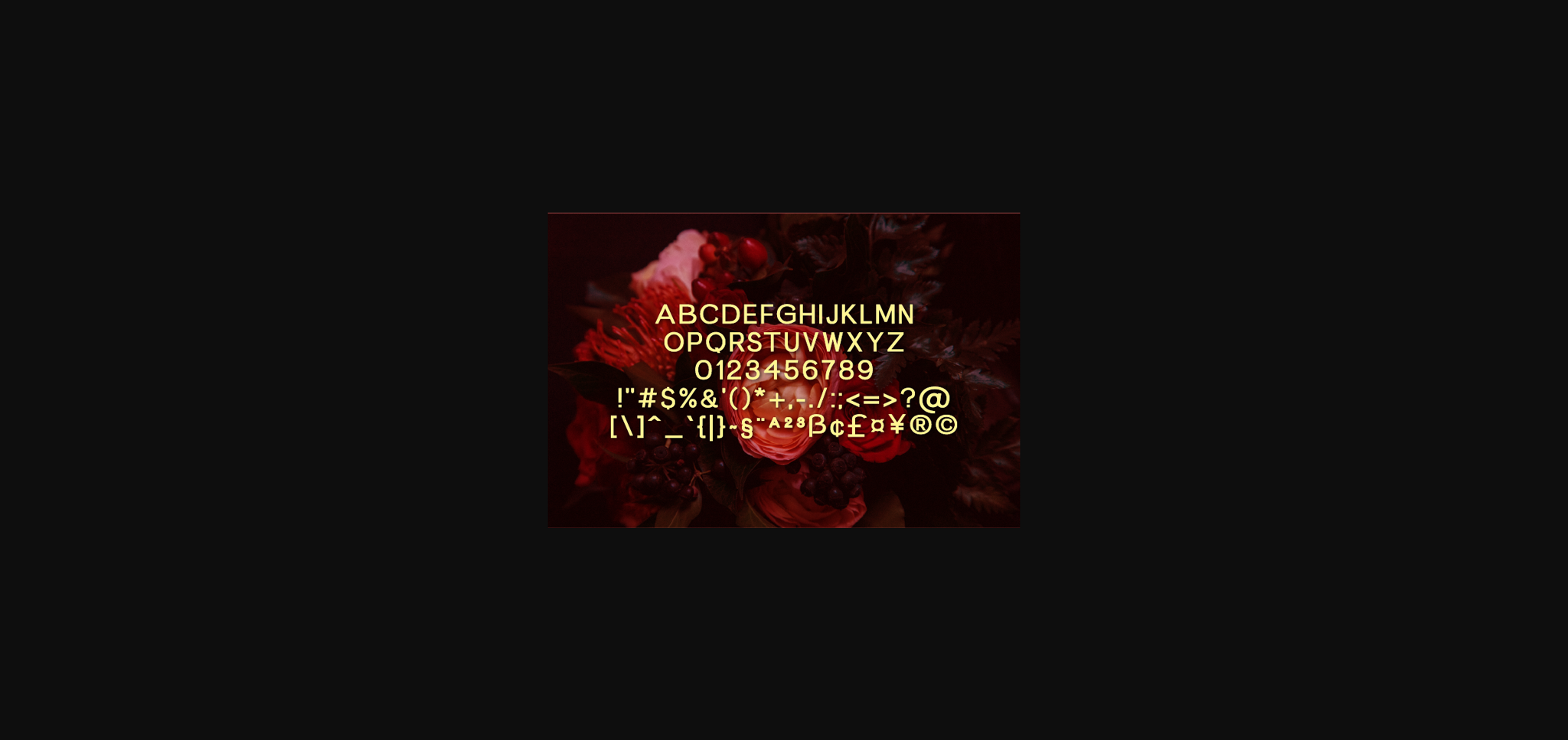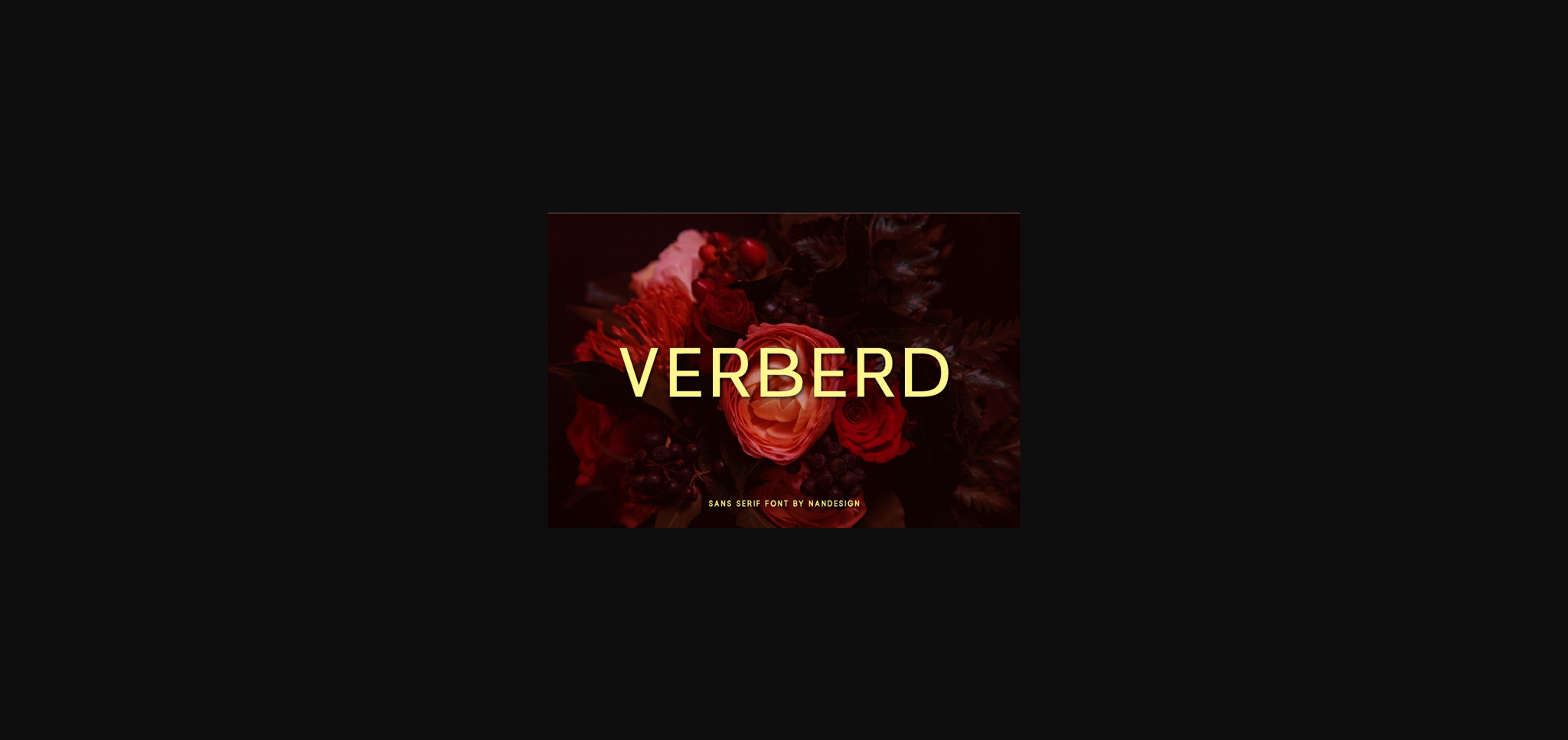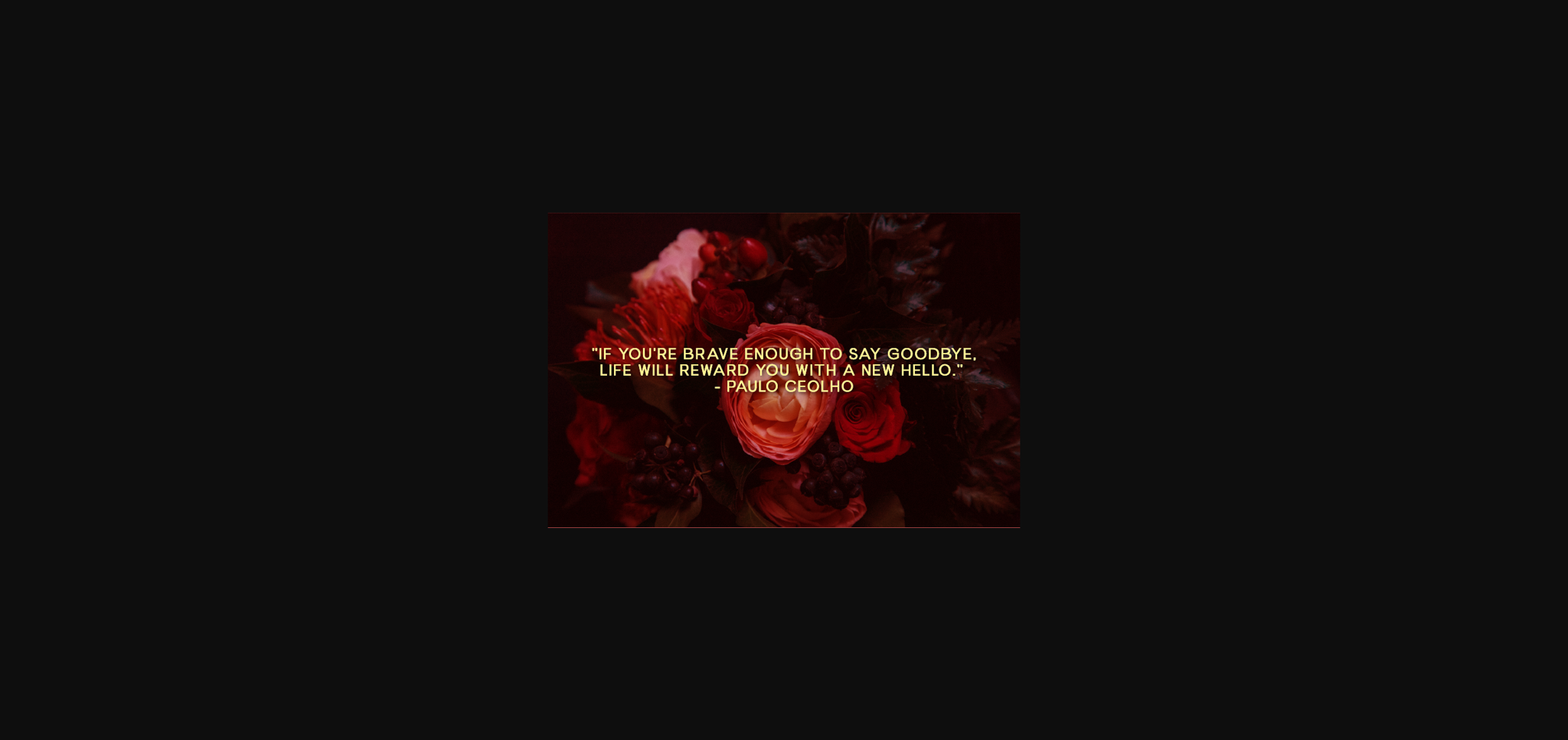
HomeSans Serif FontsVerberd Font Sans Serif Fonts Verberd Font FacebookXPinterestWhatsApp 1 of 5 ... Verberd Font Poster 2... Verberd Font Poster 3... Verberd Font Poster 4... Verberd Font Poster 5... About Verberd Font Verberd is a simple and authentic sans serif font, created to complement every project you’re currently developing. It has a clean, neat and fine vibe and it will be a hit for any design that you want to add it to. DOWNLOAD NOW People also explored Flower Monogram Font Dangerous Font The Snowday Font Bodrum Style Font Madyra Font Harmony Script Font Baby Girl Font Gerber Daisy Font Fresh Lunch Font 533 0 TagsVerberdVerberd Font Previous articleKofline FontNext articleProvelter Font LEAVE A REPLY Cancel reply Comment: Please enter your comment! Name:* Please enter your name here Email:* You have entered an incorrect email address! Please enter your email address here Website: Save my name, email, and website in this browser for the next time I comment. Personal Use Free Hanifah Personal Use Free Read more about this font Millea Personal Use Free Read more about this font Covelia Personal Use Free Read more about this font Shelly Personal Use Free Read more about this font BLOG Free vs Paid Fonts: Why Investing in Premium Fonts Is Worth It Free vs Paid Fonts: Why Premium Fonts Are Worth It in 2025 The debate of free vs paid fonts continues in the design world. While... Where to Buy American Fonts Online in 2024 Transform Your Website: Elevate Your Typography with 7 Best Web Font Generators Modern Sans-Serif Fonts That Brands Love in 2025